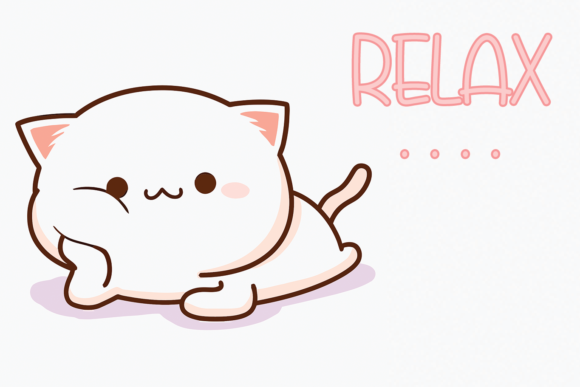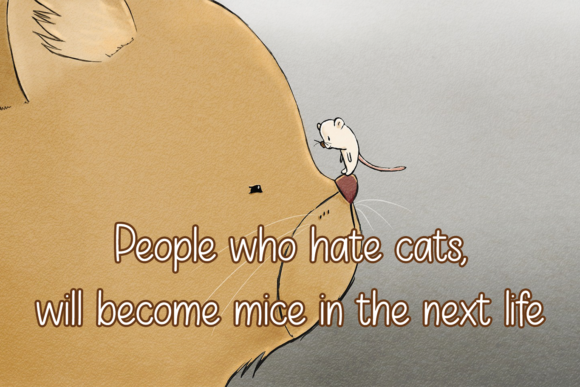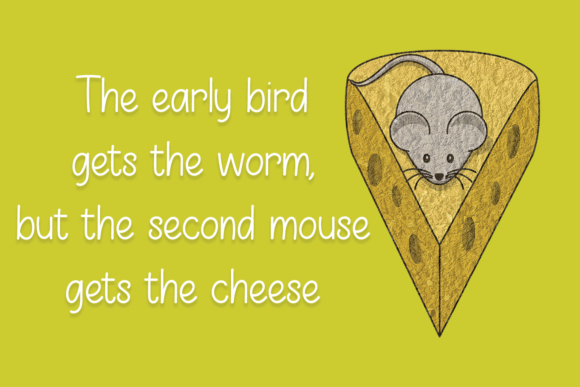
Introduction to Momogie Font
Momogie is a cute and simple lettered handwritten font that can be used for all chalkboard quotes or teaching material.
Its authentic look will add a personal and realistic feel to your designs .
Momogie Font offers exceptional quality and versatility, making it a valuable addition to your design toolkit. Whether you’re creating for personal projects or commercial use, Momogie Font delivers professional results.